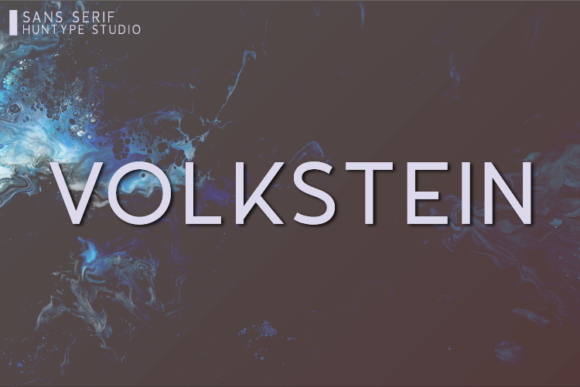
Dive into the world of visual allure with Volkstein Font, a masterpiece crafted by Huntype, specifically designed to elevate your designs to new heights. Experience the captivating power of simplicity and minimalism as Volkstein's thin lettered and straightforward sans serif style intertwines to create an aesthetic symphony. Its smooth and clean lines dance across your screens, effortlessly transforming logos, branding, and web headings into captivating works of art.
Unleash your creativity and make a bold statement with Volkstein's remarkable versatility. Seamlessly adapt this font to a wide array of projects, from sleek and sophisticated websites to eye-catching marketing materials. Volkstein's inherent charm lies in its ability to enhance the impact of your message, leaving a lasting impression on your audience.
With Volkstein as your design companion, you'll discover a world of endless possibilities. Its delicate strokes and understated elegance bring a touch of sophistication to any project. Bask in the compliments as your designs captivate and engage, leaving a lasting impact on all who encounter them.
But what truly sets Volkstein apart is its intuitive nature. Designed with user-friendliness in mind, this font seamlessly integrates into your design workflow, allowing you to effortlessly create stunning visuals without any hassle. Experience the joy of seamless font integration and let your creativity flow freely.
Don't settle for ordinary, embrace the extraordinary with Volkstein Font. Elevate your designs to new heights, captivate your audience, and leave an unforgettable mark on the digital landscape. Embrace the power of simplicity and minimalism, and let Volkstein guide you towards design excellence.